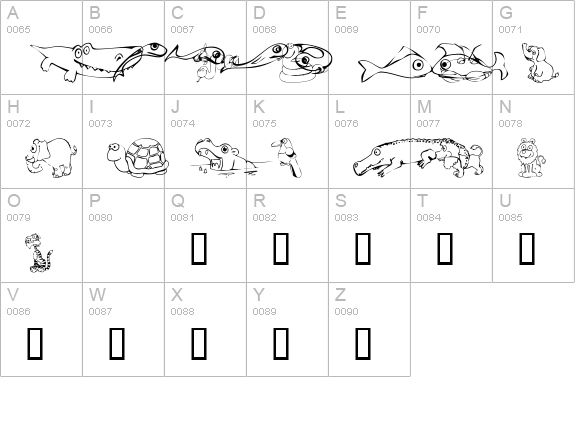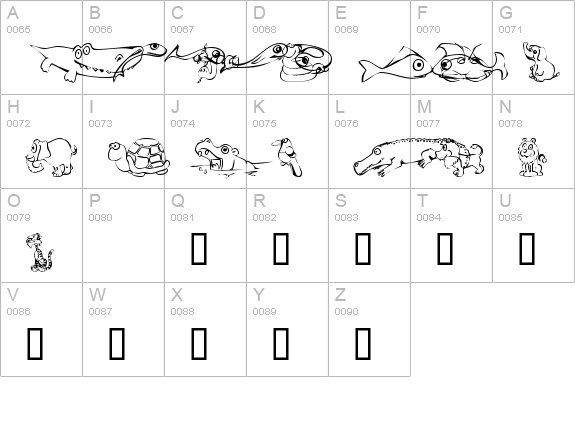
KR Jungle Scraps Font Details
The KR Jungle Scraps font is a whimsical and playful typeface that exudes a sense of adventure and creativity. With its rugged edges and unique design, this font is perfect for projects that require a touch of nature and wilderness. Whether you're working on a children's book, a branding project, or a poster design, the KR Jungle Scraps font will add a fun and lively element to your work. Best of all, the KR Jungle Scraps font is available for free download at FontsMarket.com. So you can easily add this charming font to your collection without breaking the bank. Don't miss out on the opportunity to enhance your designs with the quirky and expressive KR Jungle Scraps font today!